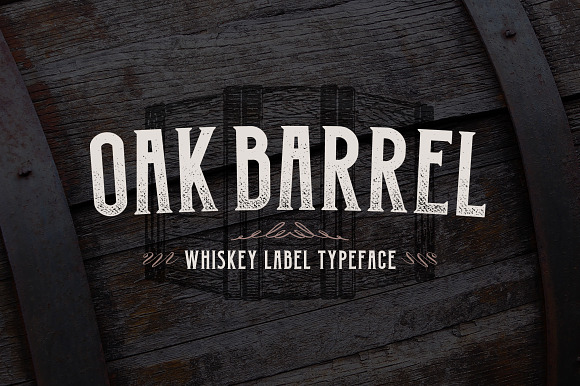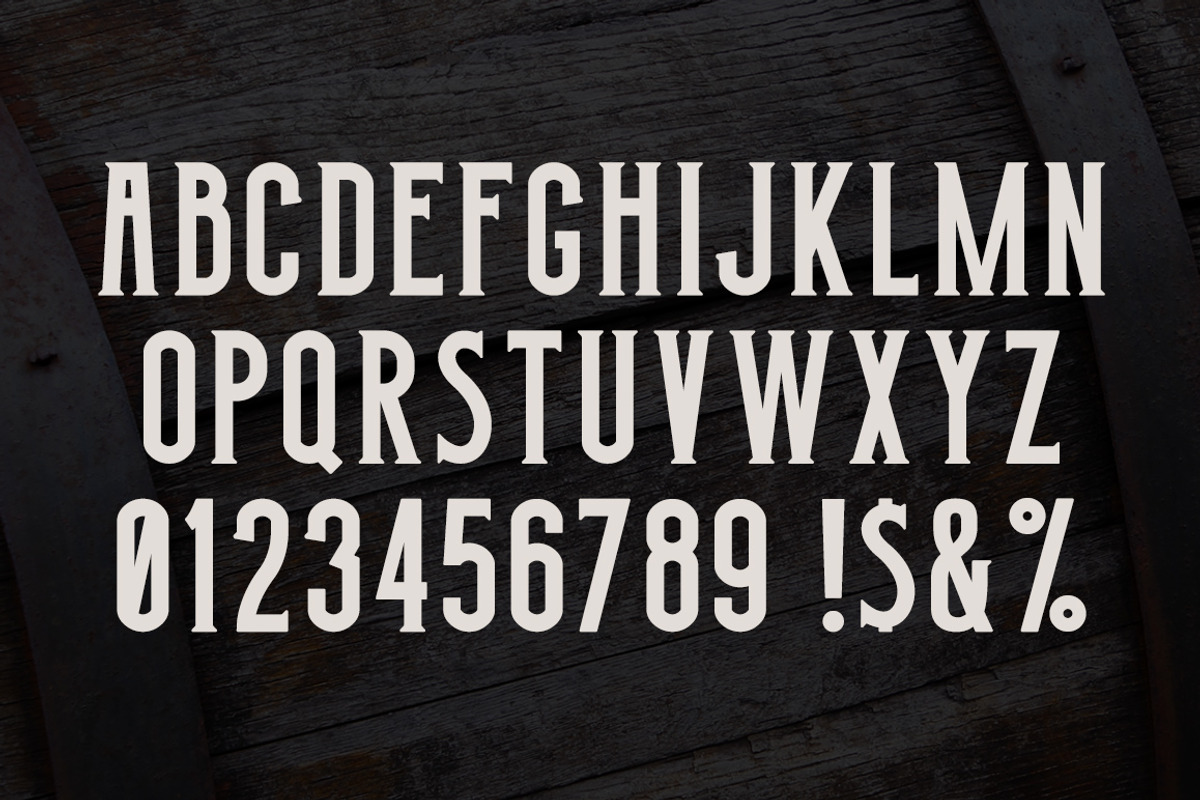
Oak Barrel - Whiskey Label Font
Oak Barrel is a bold condensed vintage serif typeface inspired by Whiskey label design. This versatile font is suitable for many uses, including of course whiskey and beer label design but also storefront signage, album covers, band merchandise and other display purposes.
Oak Barrel is supplied in OpenType format, it features all uppercase letters, numbers 0-9, common symbols and some western european accented letters.